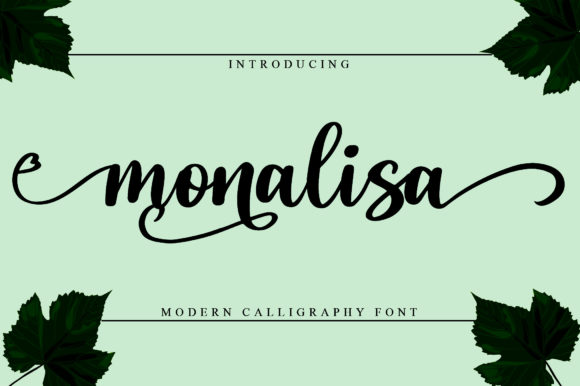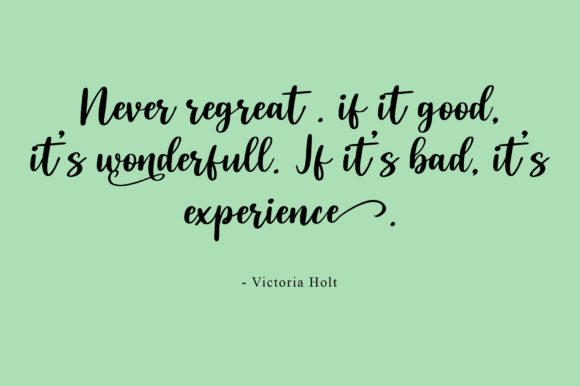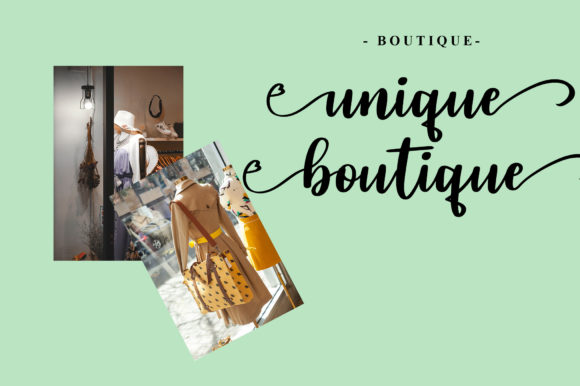
About Monalisa Font
Monalisa is a delicate and elegant handwritten font. Its distinct and well balanced letters make this font a masterpiece. This font is PUA encoded which means you can access all of the glyphs and swashes with ease!